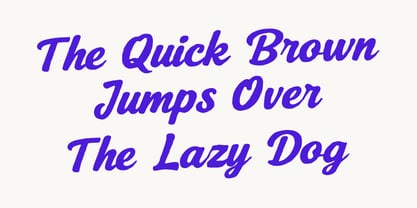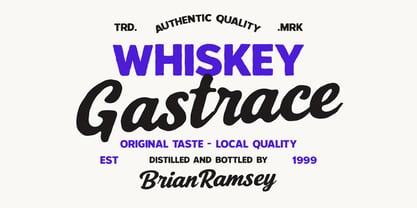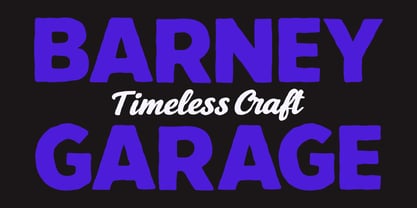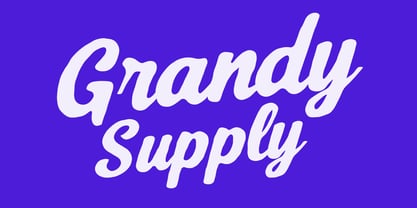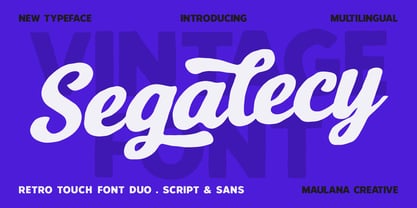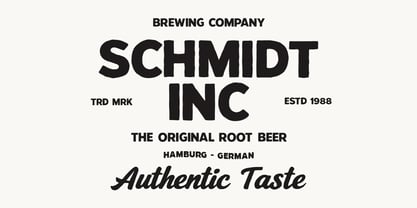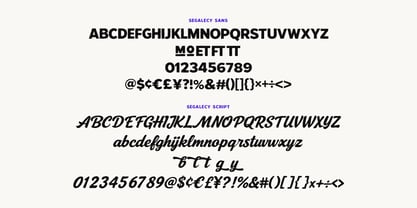
MC Segalecy
by Maulana Creative
The MC Segalecy Font Family was designed by Gilang Maulana and published by Maulana Creative. MC Segalecy contains 2 styles and family package options. More about this family
Segalecy is a versatile font duo that captures the authentic essence of retro aesthetics and vintage craftsmanship. This pairing features a bold, hand-drawn Sans and a fluid, rhythmic Script, designed to complement each other perfectly. With its slightly irregular edges and organic texture, Segalecy brings a "hand-stamped" feel to any project. It is the ideal choice for creating classic logos, whiskey labels, brewing company branding, garage-style signage, and nostalgic apparel designs. Whether you are aiming for a 1950s diner vibe or a rugged artisanal look, this duo delivers a timeless, high-quality finish.
Designers: Gilang Maulana
Foundry: Maulana Creative